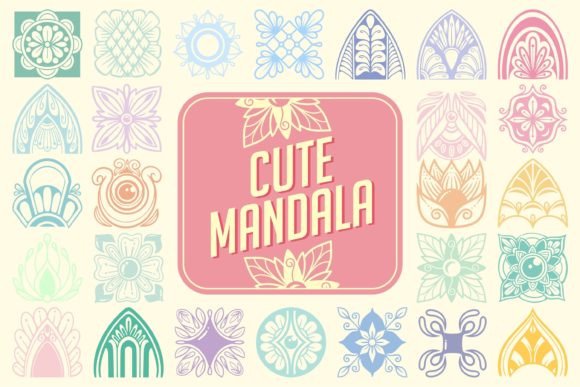
Cute Mandala Font: Add a Touch of Whimsy to Your Designs
Are you looking for a font that can add a touch of magic to your designs? Look no further than Cute Mandala, an enchanting dingbats font that is sprinkled with a delightful floral allure. This beautiful font is perfect for a vast array of projects, from romantic wedding stationery to artistic shirt designs, tote bags, and coffee mugs.
What is Cute Mandala Font?
Cute Mandala is a unique and versatile dingbats font that is designed to add a touch of whimsy to your designs. The font features intricate and delicate floral patterns that are sure to capture the attention of your audience. With its radiant aesthetic, Cute Mandala breathes life into any design, making it perfect for a wide range of projects.
Features of Cute Mandala Font
Cute Mandala font has several features that make it a great choice for designers. Some of its key features include:
- Delicate Floral Patterns: The font features intricate and delicate floral patterns that add a touch of elegance to any design.
- Romantic Twist: Cute Mandala has an irresistible romantic twist, making it perfect for wedding stationery, Valentine’s Day designs, and other romantic projects.
- Versatile: The font is versatile and can be used for a wide range of projects, from shirt designs to tote bags and coffee mugs.
Uses of Cute Mandala Font
Cute Mandala font can be used for a wide range of projects, including:
- Wedding Stationery: The font is perfect for creating romantic wedding stationery, including invitations, save the dates, and thank you cards.
- Shirt Designs: Cute Mandala can be used to create artistic shirt designs that are sure to stand out.
- Tote Bags: The font can be used to create beautiful tote bag designs that are perfect for everyday use.
- Coffee Mugs: Cute Mandala can be used to create unique and artistic coffee mug designs that make great gifts.
- Social Media Graphics: The font can be used to create social media graphics, including Facebook posts, Instagram graphics, and Twitter headers.
Benefits of Using Cute Mandala Font
There are several benefits to using Cute Mandala font in your designs. Some of the key benefits include:
- Unique Designs: The font allows you to create unique and eye-catching designs that are sure to stand out.
- Time-Saving: Cute Mandala is easy to use and can save you time when creating designs.
- Versatility: The font is versatile and can be used for a wide range of projects.
- Professional-Looking Designs: Cute Mandala can help you create professional-looking designs that are sure to impress your clients.
Tips for Using Cute Mandala Font
Here are some tips for using Cute Mandala font:
- Use it Sparingly: Use the font sparingly to avoid overwhelming your design.
- Pair it with Other Fonts: Pair Cute Mandala with other fonts to create a unique and eye-catching design.
- Experiment with Colors: Experiment with different colors to find the perfect match for your design.
- Use it for Headlines: Use Cute Mandala for headlines and titles to add a touch of elegance to your design.
Cute Mandala font is a beautiful and versatile dingbats font that is perfect for a wide range of projects. With its delicate floral patterns and romantic twist, it’s sure to add a touch of magic to your designs. Whether you’re creating wedding stationery, shirt designs, or social media graphics, Cute Mandala is a great choice. So why not give it a try and see the difference it can make in your designs?